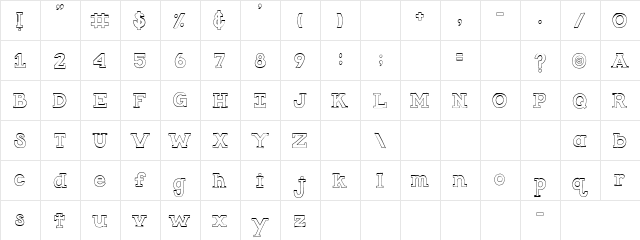
Design Context for SBC Serif Block Typeface
SBC Serif Block carries the refined structure of traditional serif typography, with bracketed terminals and considered proportions that communicate credibility and craft.